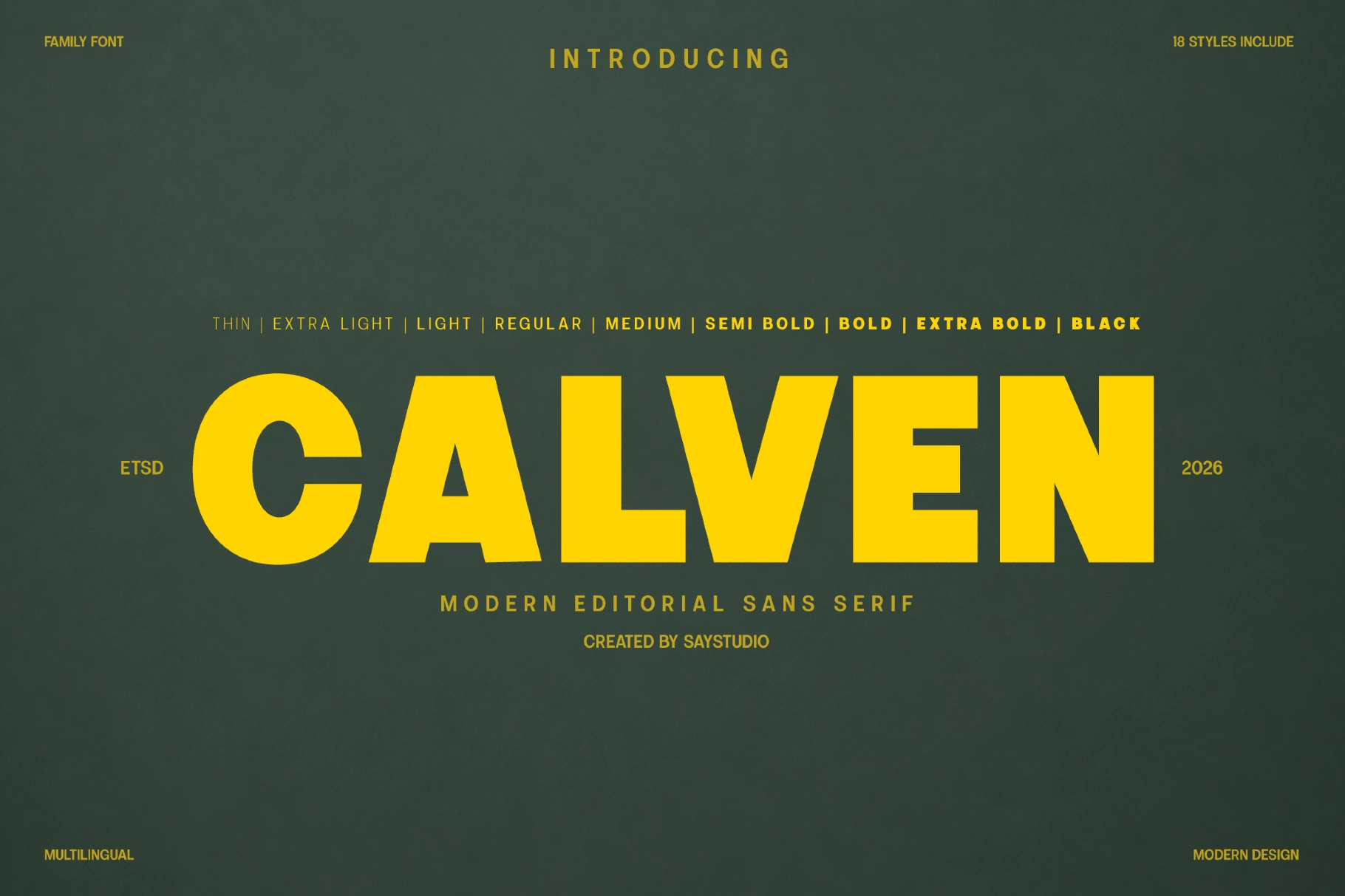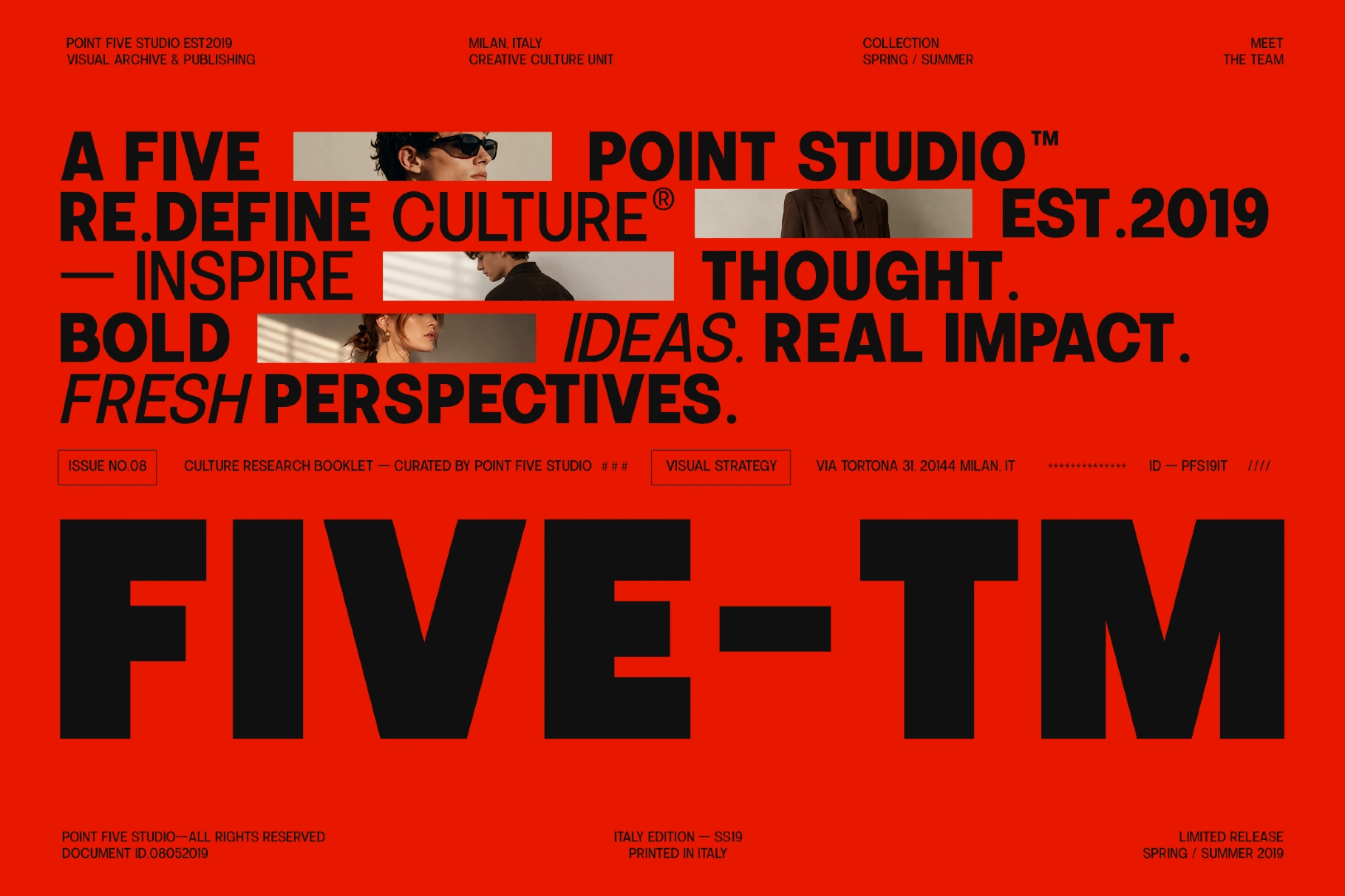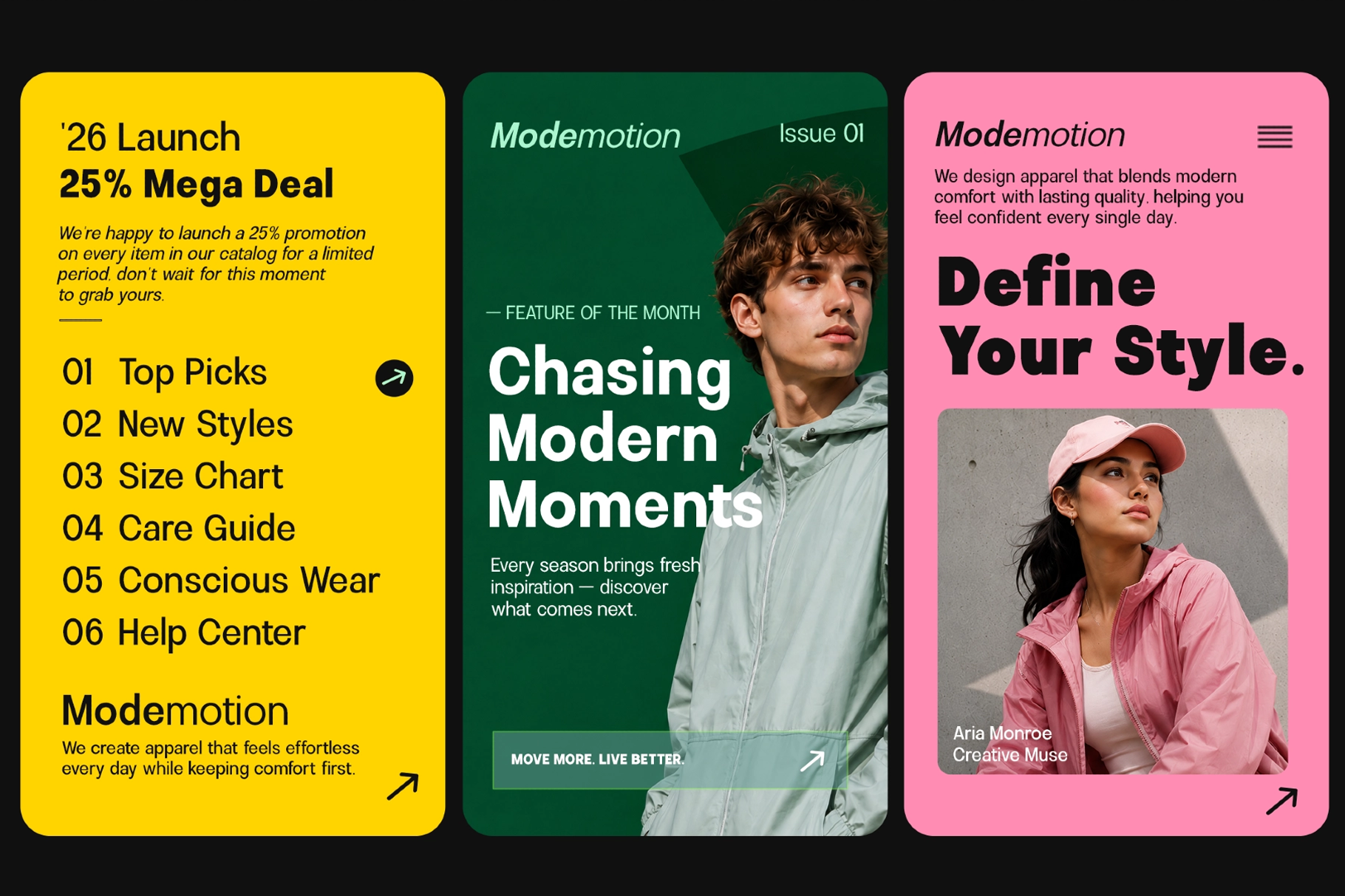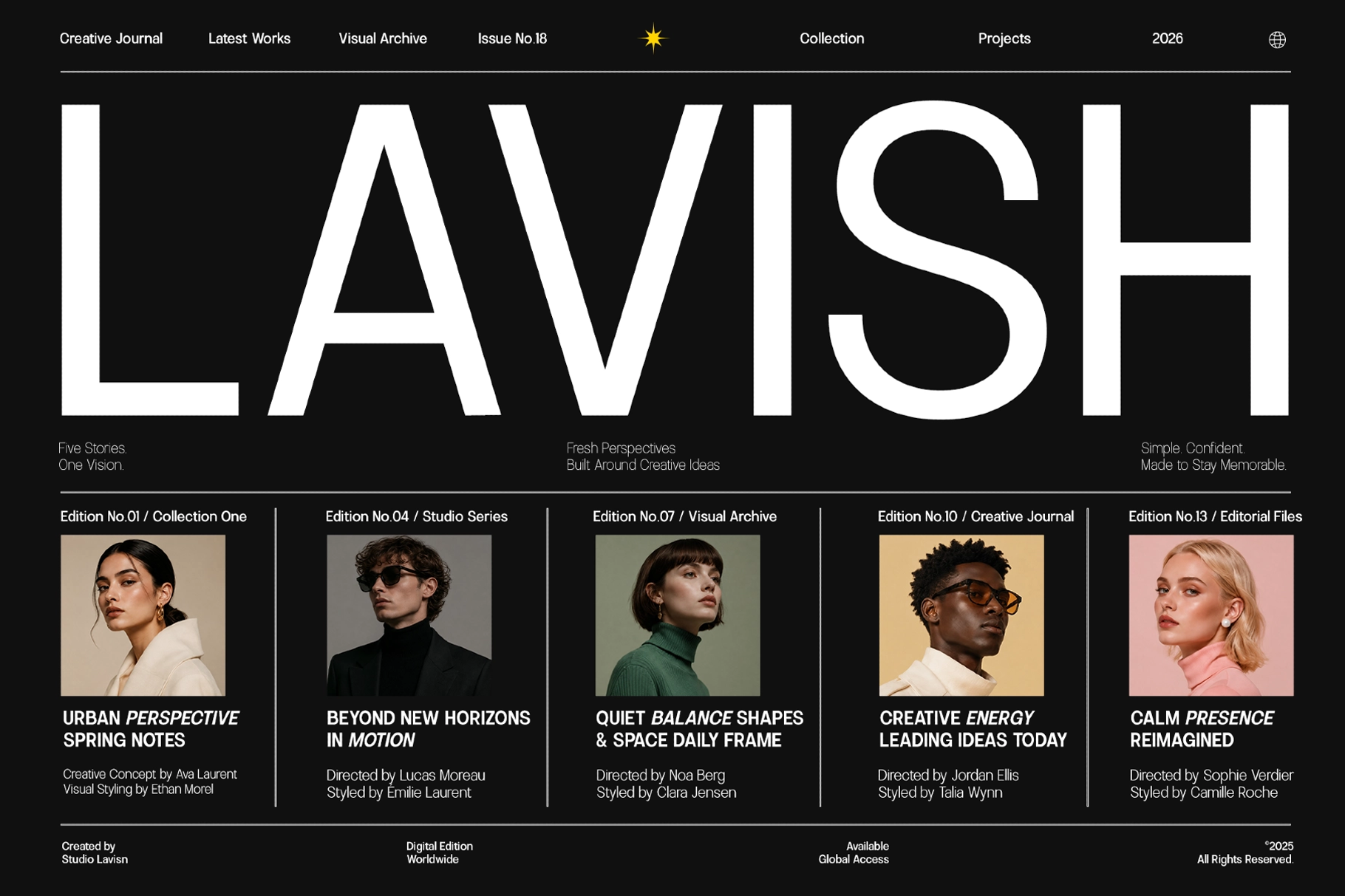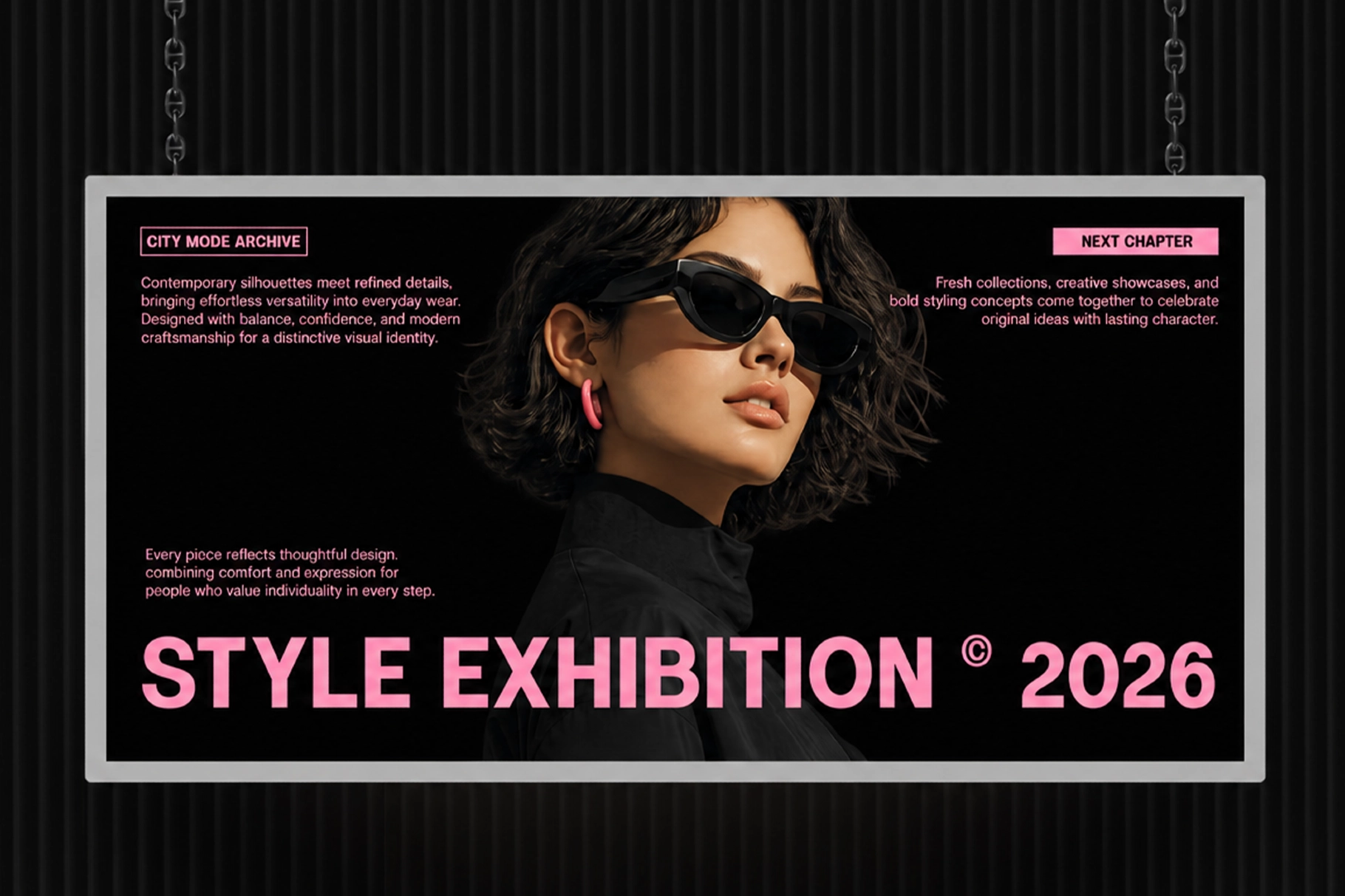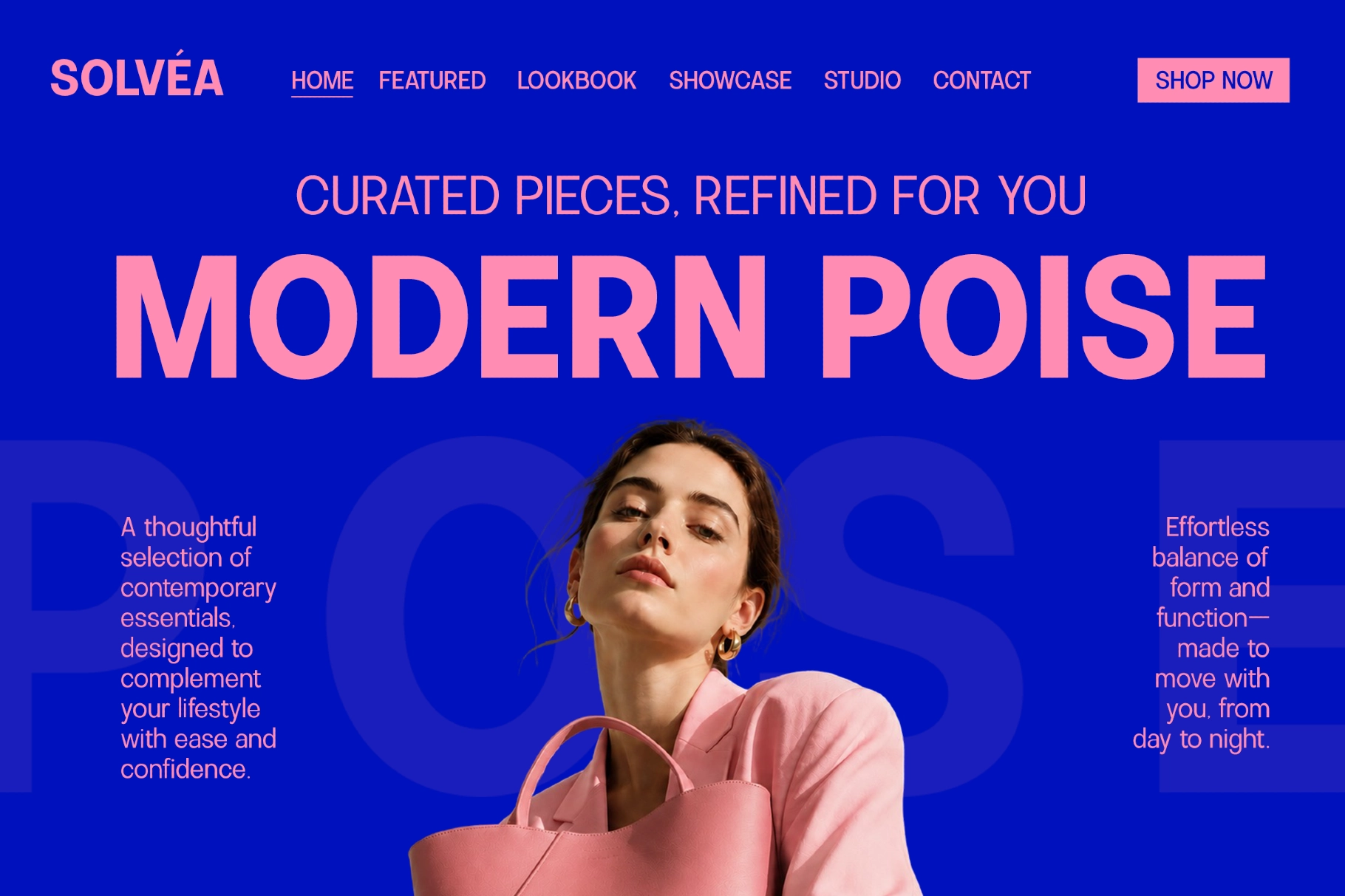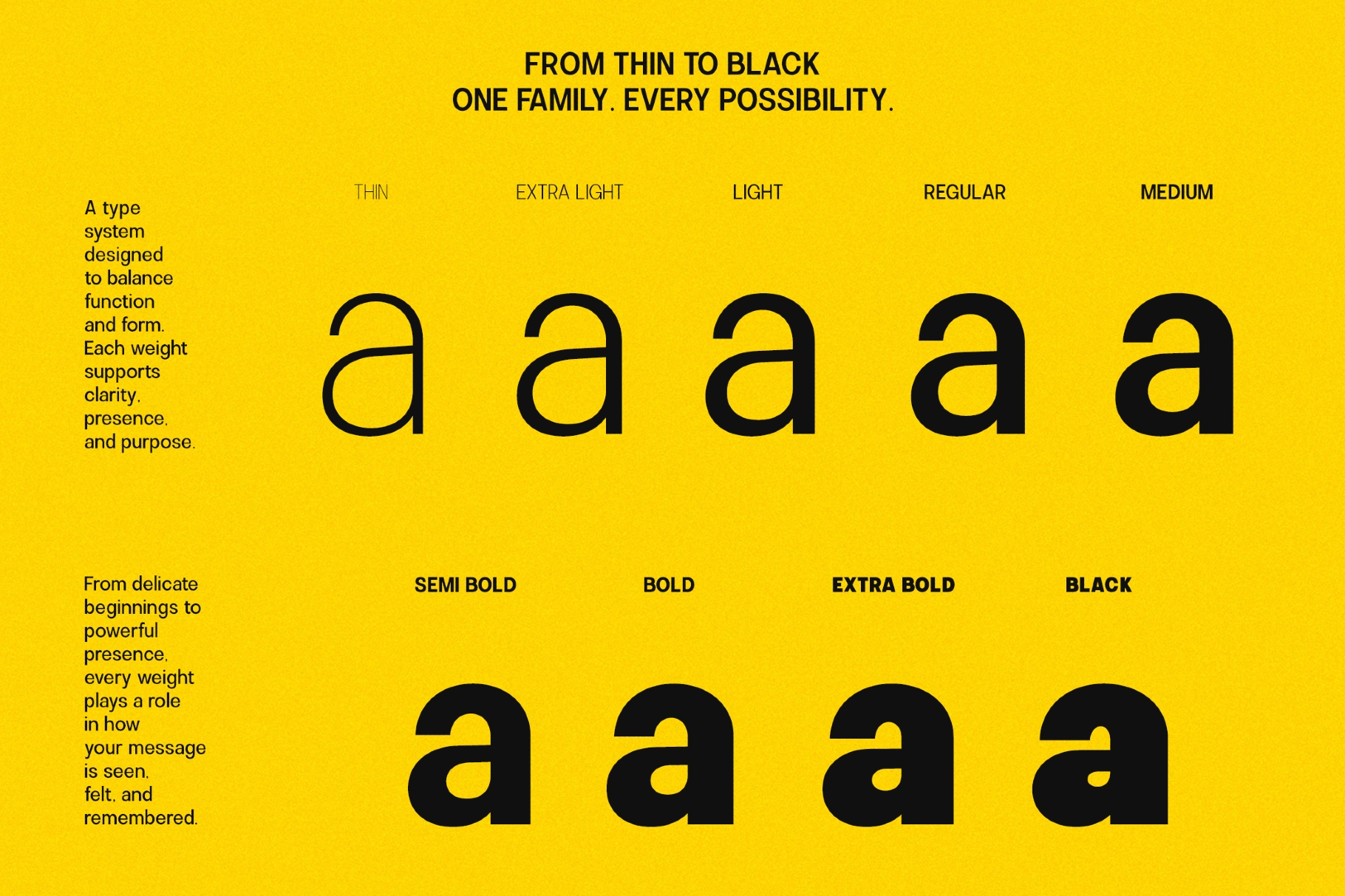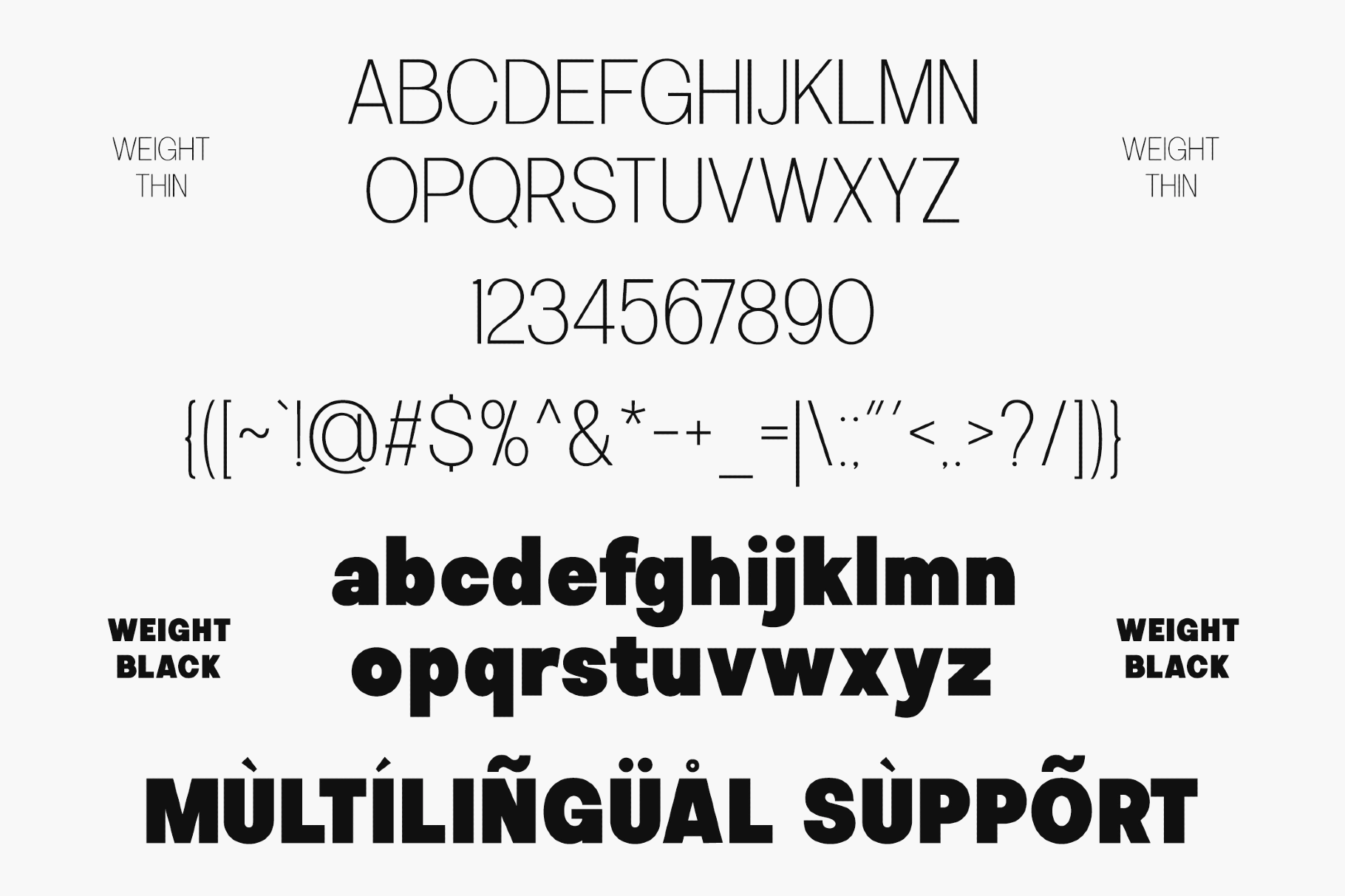
Calven - Geometric Sans Serif Font Family
Calven is a geometric sans serif font family with even stroke weight, open counters, and a wide range that runs from a hairline Thin to a heavy Black. Every weight pairs with a matching italic that keeps the same geometric skeleton at a gentle slant.
The family spans quiet body text at the lighter weights and full-block headlines at Black, so a single system covers a masthead, a caption, and a pull quote without swapping fonts. Use it for editorial layouts, branding systems, packaging, posters, websites, and social graphics.
- 9 weights from Thin to Black, each paired with a matching Italic — 18 styles total;
- Uppercase & lowercase;
- Numerals, punctuation & symbols;
- Ligatures, ordinals & superscript figures